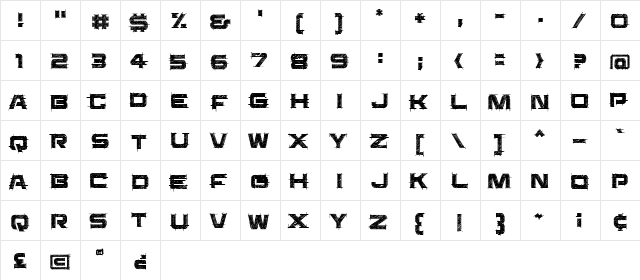
Saucer BB Regular
| Foundry | Nate Piekos. Blambot.com |
| Designer | Nate Piekos |
Design Context for Saucer BB Typeface
Saucer BB is a composed and adaptable typeface that performs quietly and consistently across a wide range of design contexts.